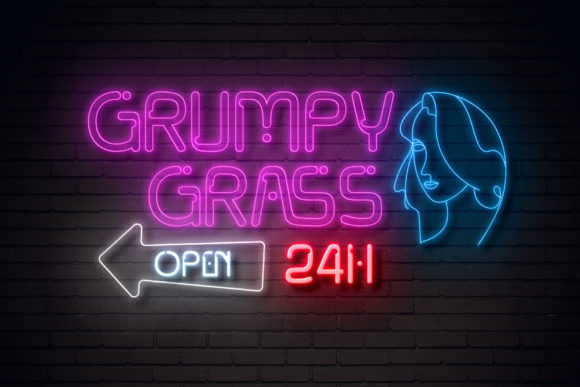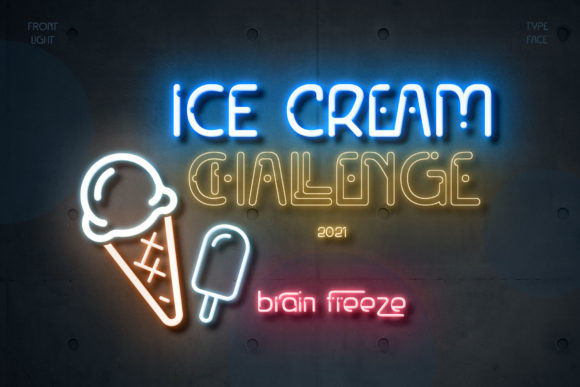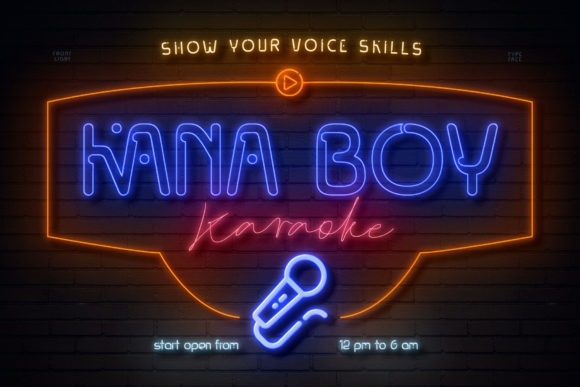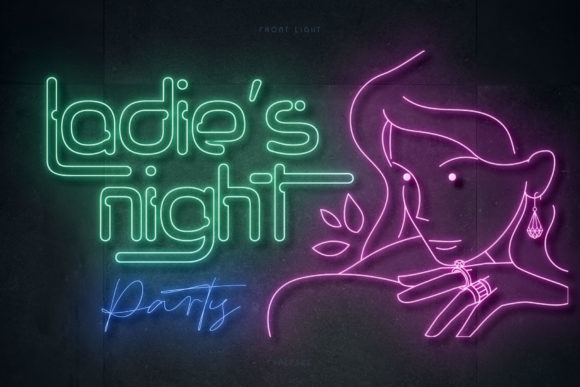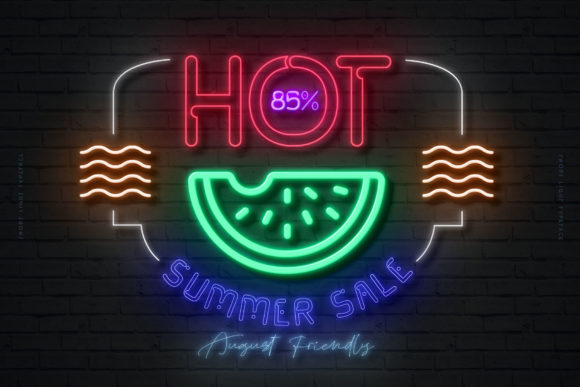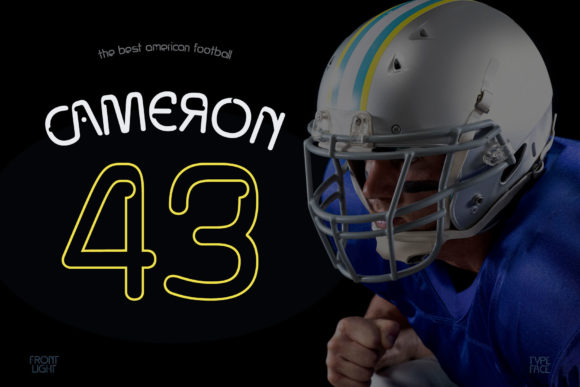
The Ultimate Guide to Front Light Font: Elevate Your Designs with Modern Flair
A Personal Review: What I Love About Front Light Font
Front Light Font is a modern display font that has quickly become a favorite in my design toolkit. Here are some things I love about it:
- ✨ Modern and sleek design: Front Light Font has a fresh and contemporary look that’s perfect for a wide range of design projects.
- ✅ PUA encoded: The font is PUA encoded, which means you can easily access all the glyphs and swashes, giving you endless creative possibilities.
- 🎨 Highly versatile: Whether you’re working on a logo, poster, or social media graphics, Front Light Font adapts seamlessly to different design contexts.
While Front Light Font is an excellent choice for many design projects, there are a few minor quirks to be aware of:
- 🤔 Glyph compatibility: Some glyphs might not work perfectly with older software or browsers, so it’s essential to test your design across different platforms.
- ⚠️ Overuse: As with any font, using Front Light Font excessively can lead to a cluttered design; use it judiciously to maximize its impact.
Front Light Font was designed with the goal of creating a modern and versatile display font that could be used across various design projects. The designer aimed to craft a font that would be both elegant and bold, with a unique character that sets it apart from other fonts.
| Font Name | Front Light Font |
| Author | Alit Design |
| Is Front Light Font suitable for body text? | While Front Light Font is a beautiful display font, it’s not ideal for body text due to its modern and sleek design; consider using a more traditional font for body text. |